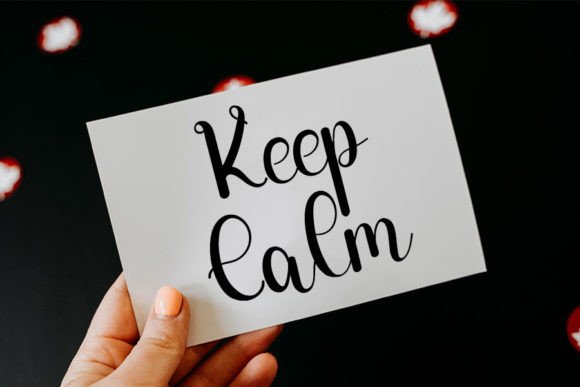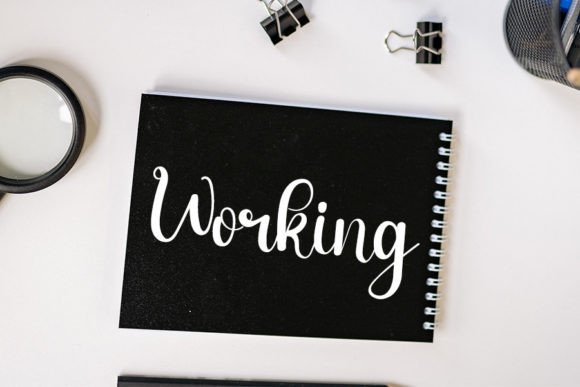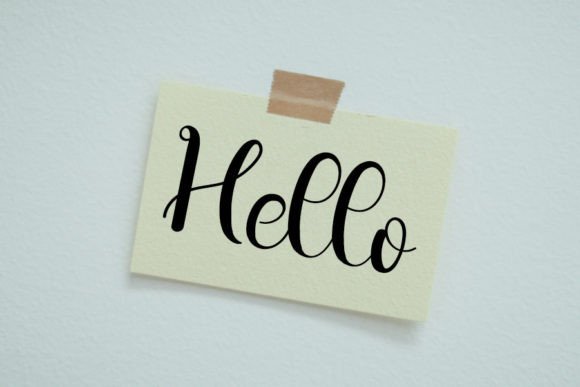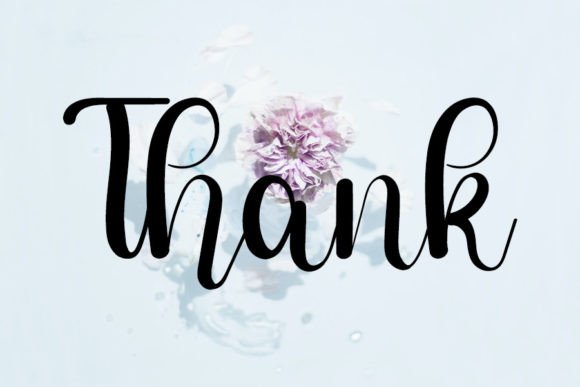
The Perfect Match for Your Next Design Project
Have you ever been working on a design project, pouring your heart and soul into it, and suddenly, the perfect font pops into your mind? That’s exactly what happened to many designers who discovered the Best Friends Font. Its elegant touch and unique style have captured the hearts of creatives worldwide.
The Best Friends Font is a beautiful handwritten font that’s perfect for adding a personal touch to your favorite projects. Whether you’re working on a wedding invitation, a blog post, or a social media graphic, this font is sure to elevate your design game. Its timeless style makes it a valuable addition to any designer’s toolkit, and its versatility ensures that you’ll find a use for it in almost any project.
With its distinct and beautiful design, the Best Friends Font is a must-have for any designer looking to create spectacular designs that stand out from the crowd. Whether you’re a seasoned pro or just starting out, this font is sure to become your new best friend.
Best Friends Font Key Features
- Font Family: Best Friends Font is a unique, hand-drawn font designed for informal and friendly text.
- Unique Characteristics: The font features a playful, cursive script with rounded edges and a friendly feel, making it perfect for social media, blog headers, and other informal text.
Best Friends Font Review
Overall, I’d say the Best Friends Font is a solid choice for casual, friendly designs. ✨ I love how it’s playful and approachable, making it perfect for social media graphics, posters, and even children’s books.
The font’s rounded edges and soft curves give it a warm, inviting feel that’s hard to resist. ✨ The font’s various weights and styles also offer a lot of flexibility, allowing designers to adjust the tone and atmosphere of their designs.
- Playful and approachable design
- Soft, rounded edges
- Versatile weights and styles
- Perfect for casual, friendly designs
However, I do have some concerns about the font’s limitations. ⚠️ While it’s great for casual designs, it may not be the best choice for more formal or professional projects. Additionally, the font’s rounded edges can sometimes make it difficult to read at smaller font sizes.
- May not be suitable for formal or professional projects
- Difficult to read at smaller font sizes
- Limited in its versatility for more complex designs
Overall, I’d give the Best Friends Font 4 out of 5 stars. It’s a great choice for designers who want a playful, approachable font for casual projects, but may not be the best fit for more formal or complex designs.
Some tips for getting the most out of the Best Friends font include: using it in combination with bold and italic styles to add emphasis, and using it in conjunction with bright and bold colors to create a playful and eye-catching design. Common use cases for the Best Friends font include: social media graphics, party invitations, and children’s books.